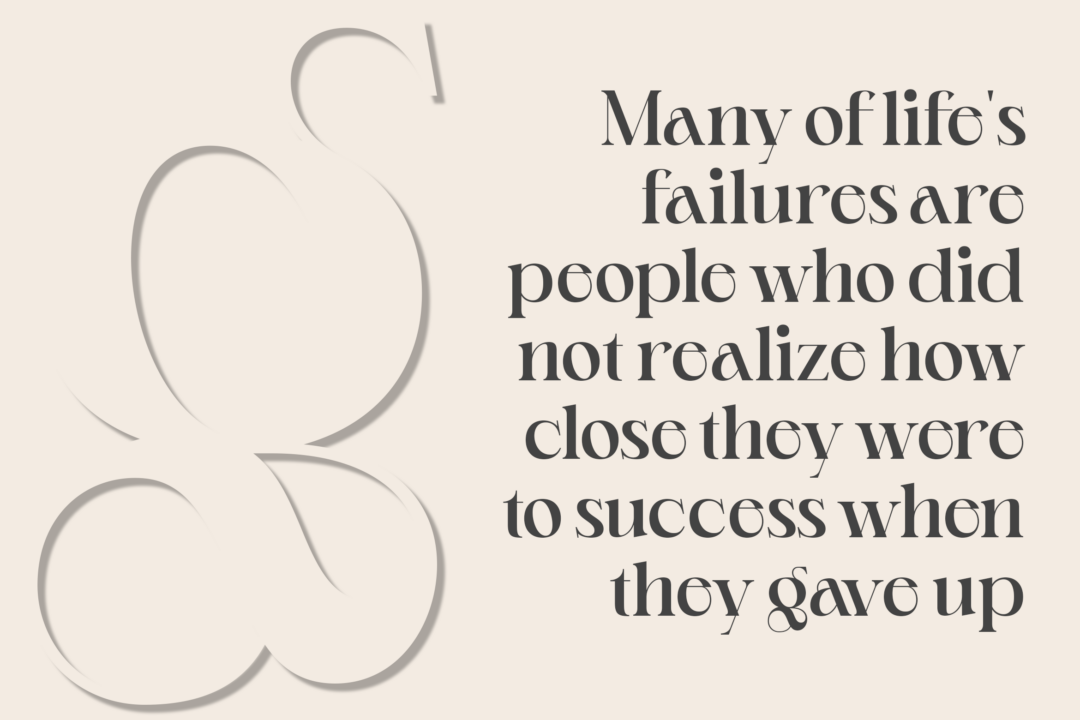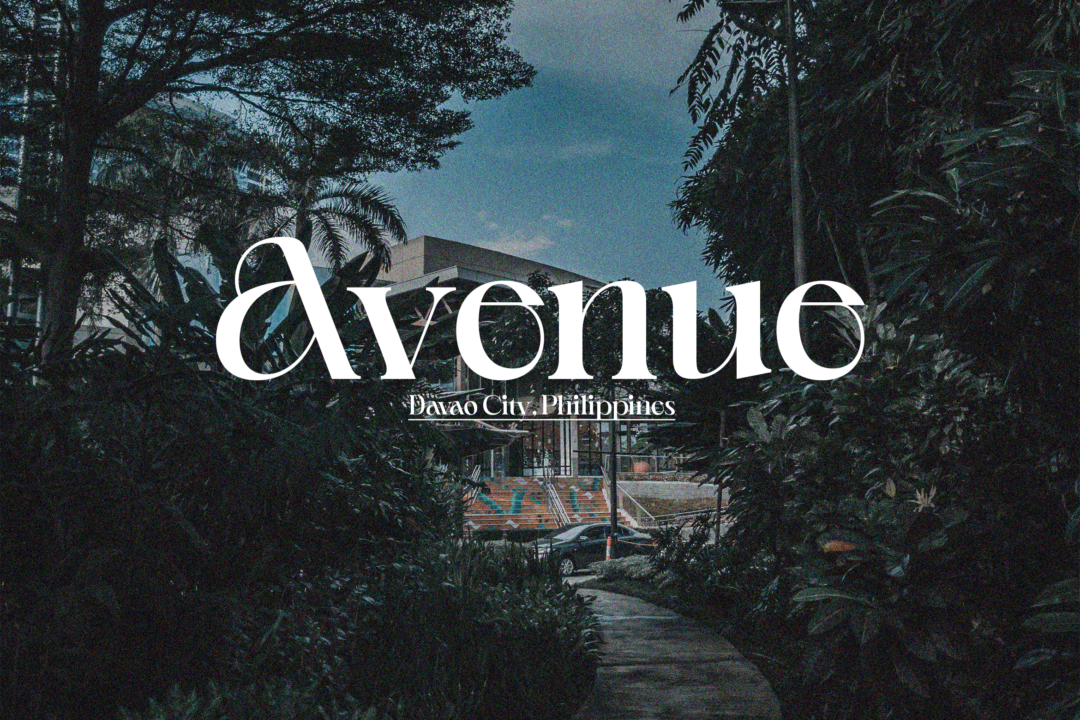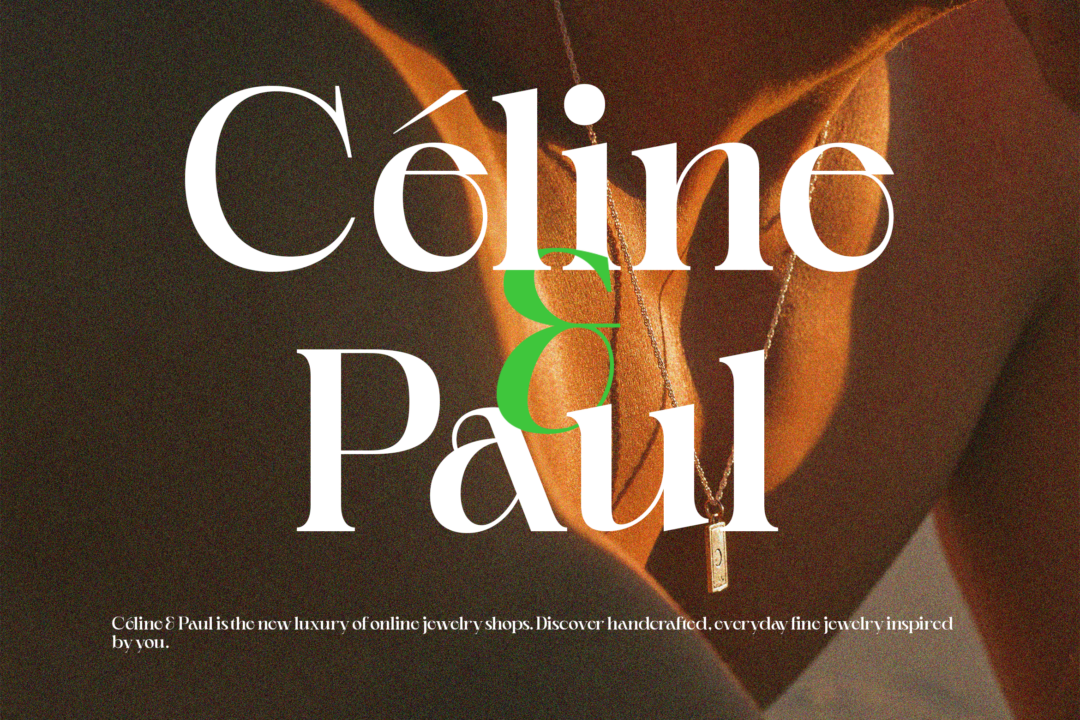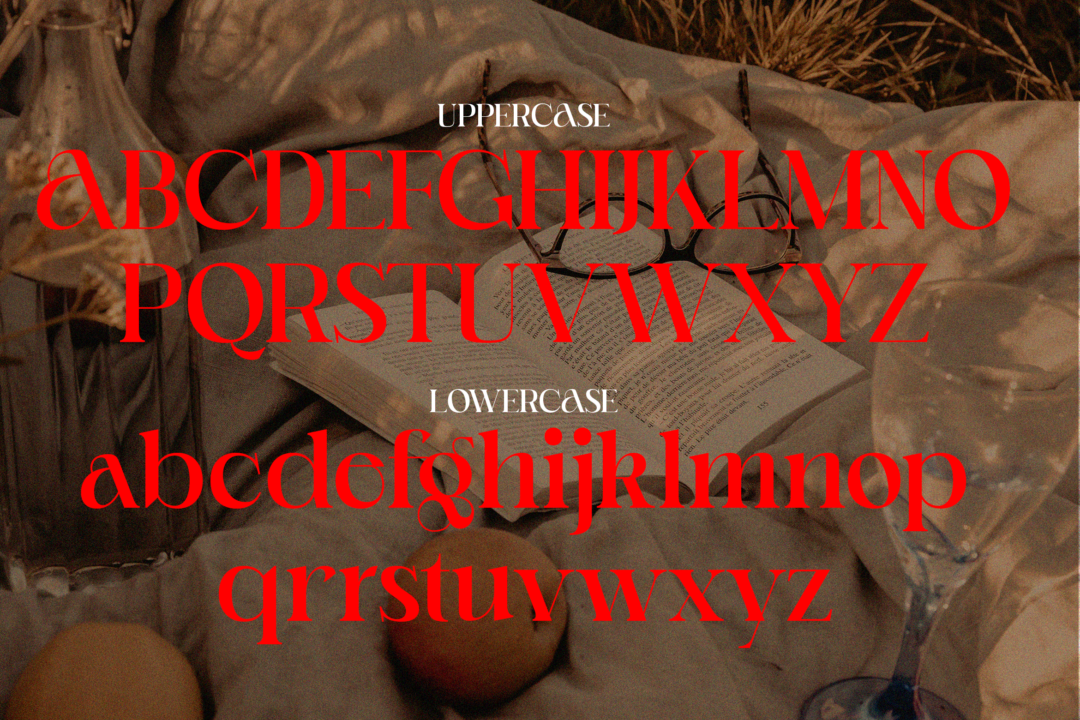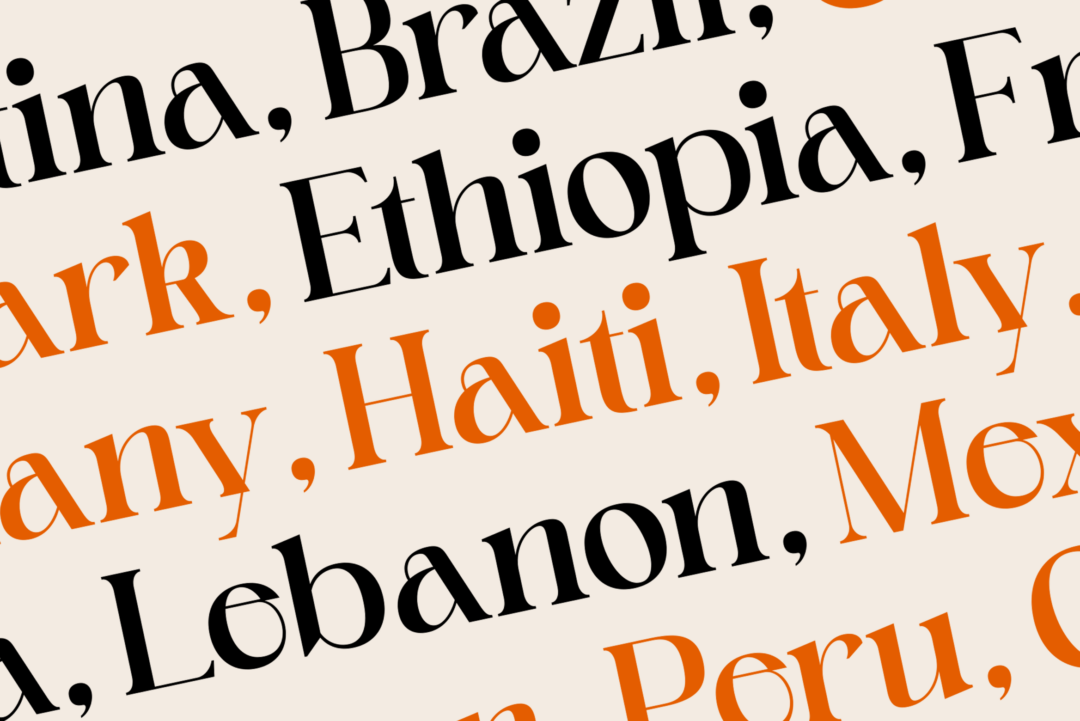
Archer Gage elegant serif typeface is a powerful tool for creating impactful and memorable designs. The delicate curves and intricate details of an elegant serif typeface can create a sense of refinement and sophistication that captures the attention of viewers and leaves a lasting impression.
An elegant serif typeface can be particularly effective in branding and advertising, where it can help to establish a sense of luxury and exclusivity. When used in editorial design, an elegant serif typeface can convey a sense of authority and timelessness, enhancing the credibility of the content.
In addition, an elegant serif typeface can also be used to create contrast and balance in design layouts. By pairing an elegant serif typeface with a simpler, more modern sans-serif typeface, for example, designers can create a harmonious balance of classic and contemporary styles.
Overall, an elegant serif typeface is a versatile and powerful design tool that can help to create designs that are impactful, memorable, and timeless. Whether used in branding, advertising, editorial design, or other applications, an elegant serif typeface is a surefire way to add a touch of elegance and sophistication to any project.
Archer Gage